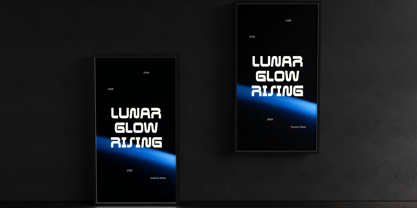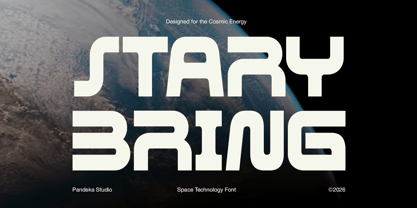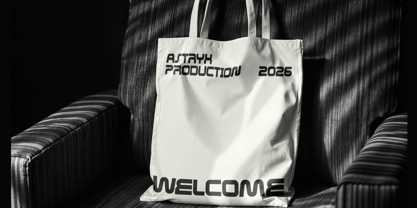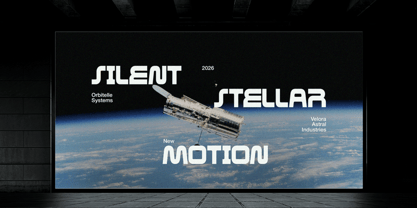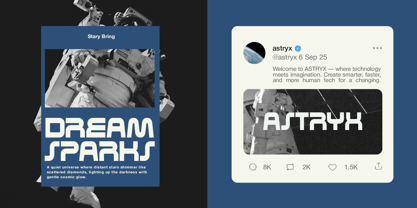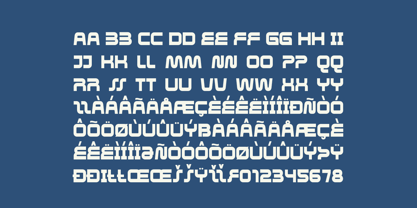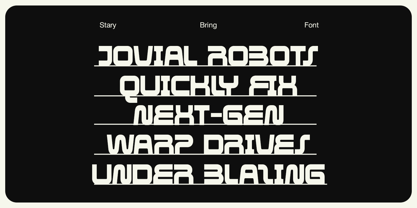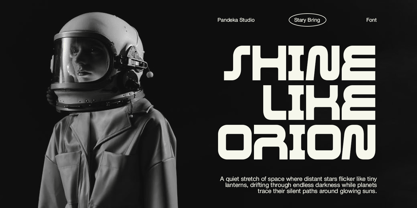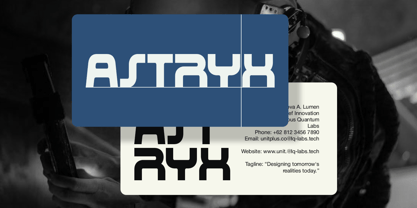
Stary Bring
Stary Bring is a bold, futuristic display font inspired by space exploration, cosmic energy, and high-tech digital aesthetics. Its sharp angles, streamlined letterforms, and sci-fi character create a strong, modern, and otherworldly visual impact, perfect for futuristic branding and interstellar-themed designs.
Available in 1 style: Regular, Stary Bring includes uppercase & lowercase letters, numbers, punctuation, and multilingual support. This font works beautifully for space tech branding, aerospace concepts, sci-fi posters, gaming visuals, movie titles, tech startups, digital interfaces, motion graphics, album covers, merchandise, and futuristic editorial design.